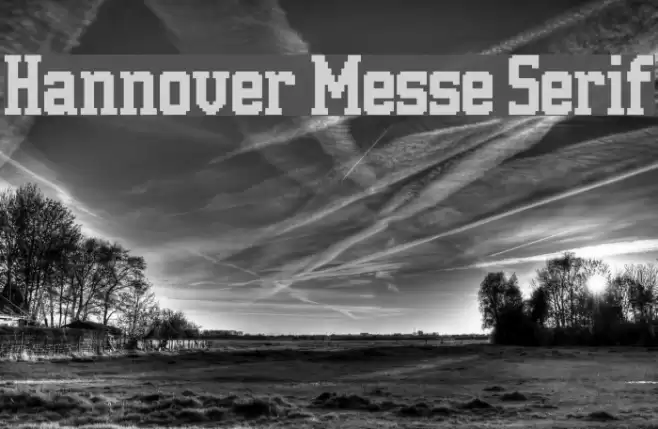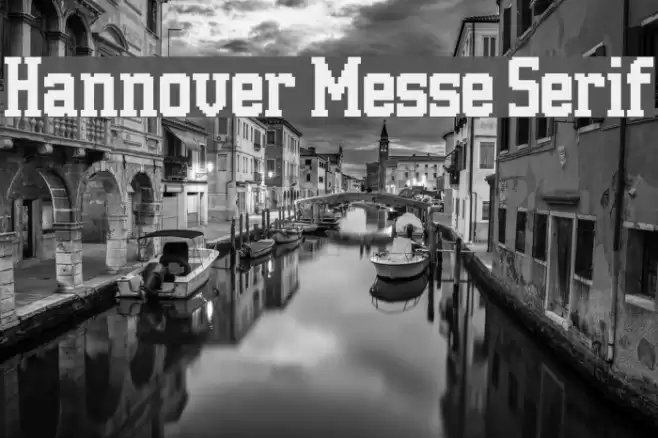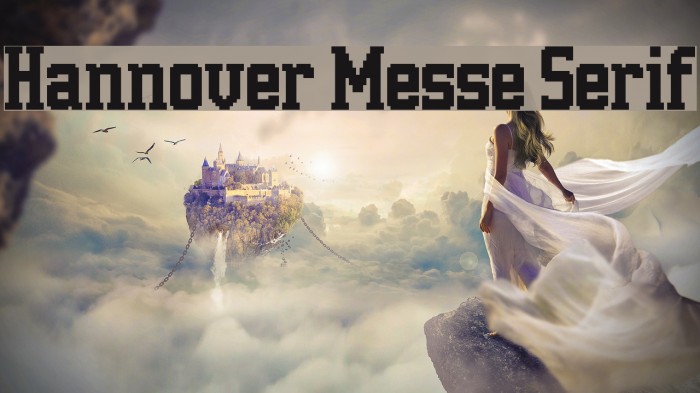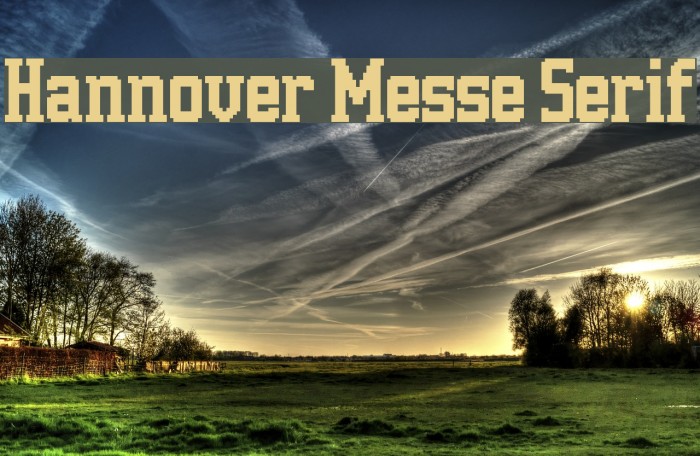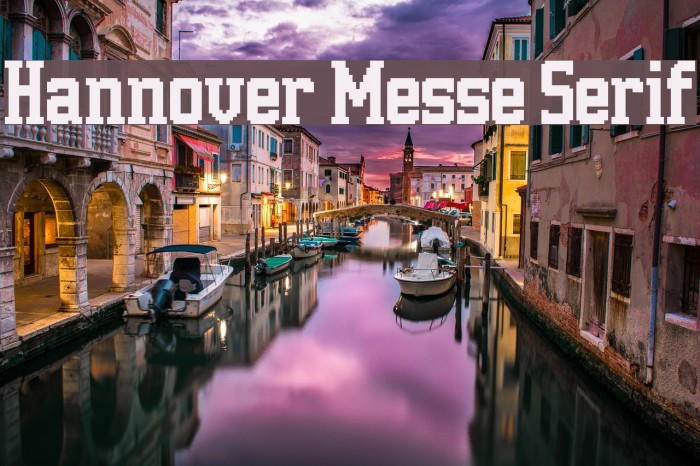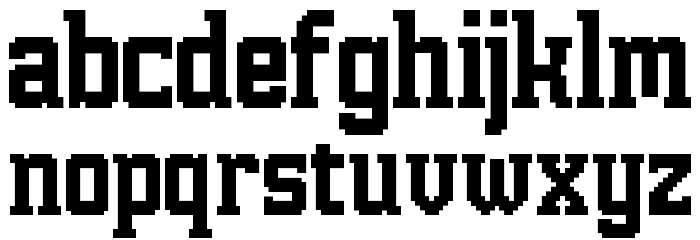
Hannover Messe Serif Font
Hannover Messe Serif Description
This font features a bold and robust serif style with strong, block-like characters. The uppercase letters are particularly striking, with a uniform height and width that convey a sense of stability and strength. The lowercase letters maintain a consistent design, ensuring readability while retaining the bold aesthetic. Numbers and special characters follow the same design principles, making them easily distinguishable. The overall appearance is reminiscent of vintage typefaces used in industrial or mechanical contexts, offering a sense of nostalgia and reliability.
A bold, vintage serif font with strong, block-like characters from Uncategorized fonts.
- Proposed Projects: Ideal for industrial-themed designs, retro posters, branding for mechanical or automotive industries, and any project requiring a bold, vintage aesthetic.
- Overall Style: Vintage